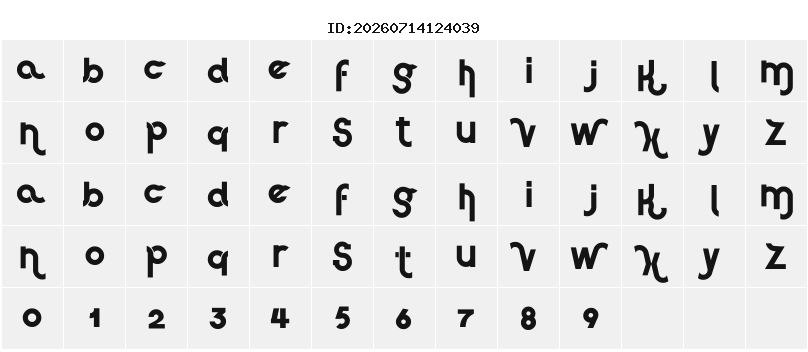
Haus Sweet Haus Preview
About Haus Sweet Haus.ttf
Haus Sweet Haus.ttf is a modern, elegant sans-serif font designed for ultimate readability and visual harmony. Perfect for branding, headlines, web design, and print materials.